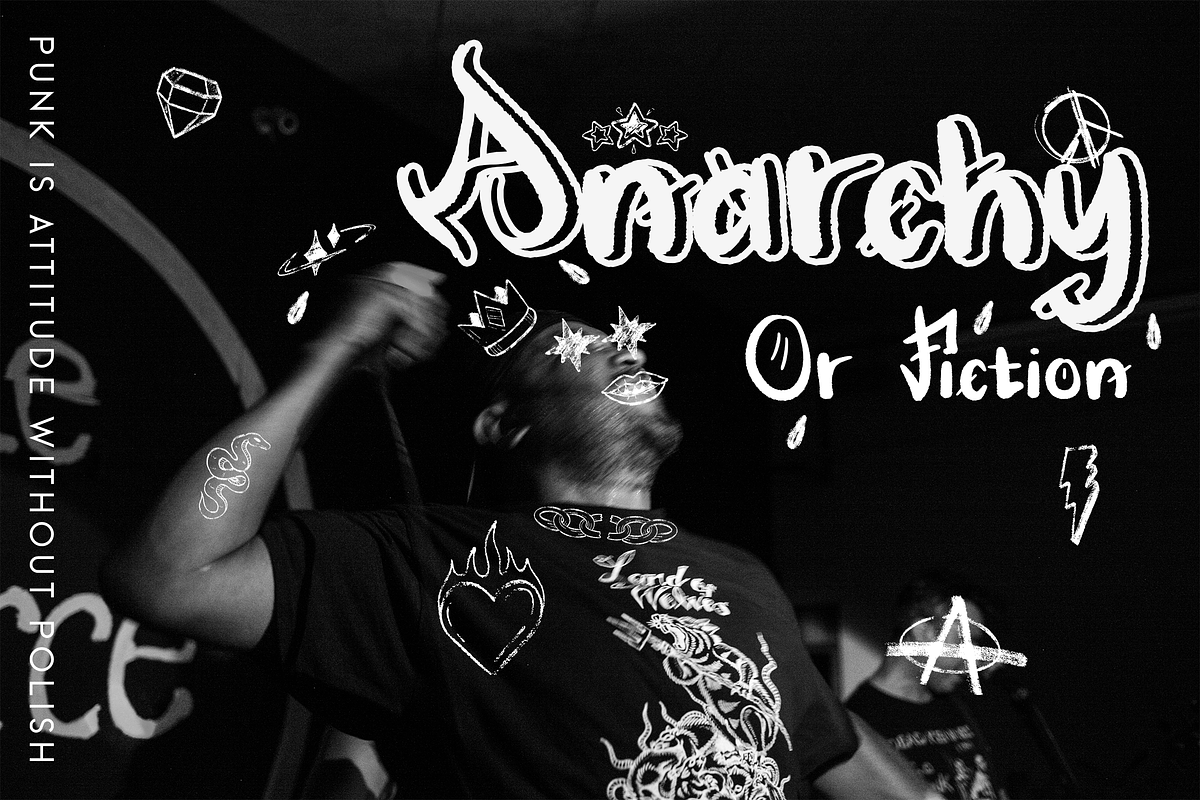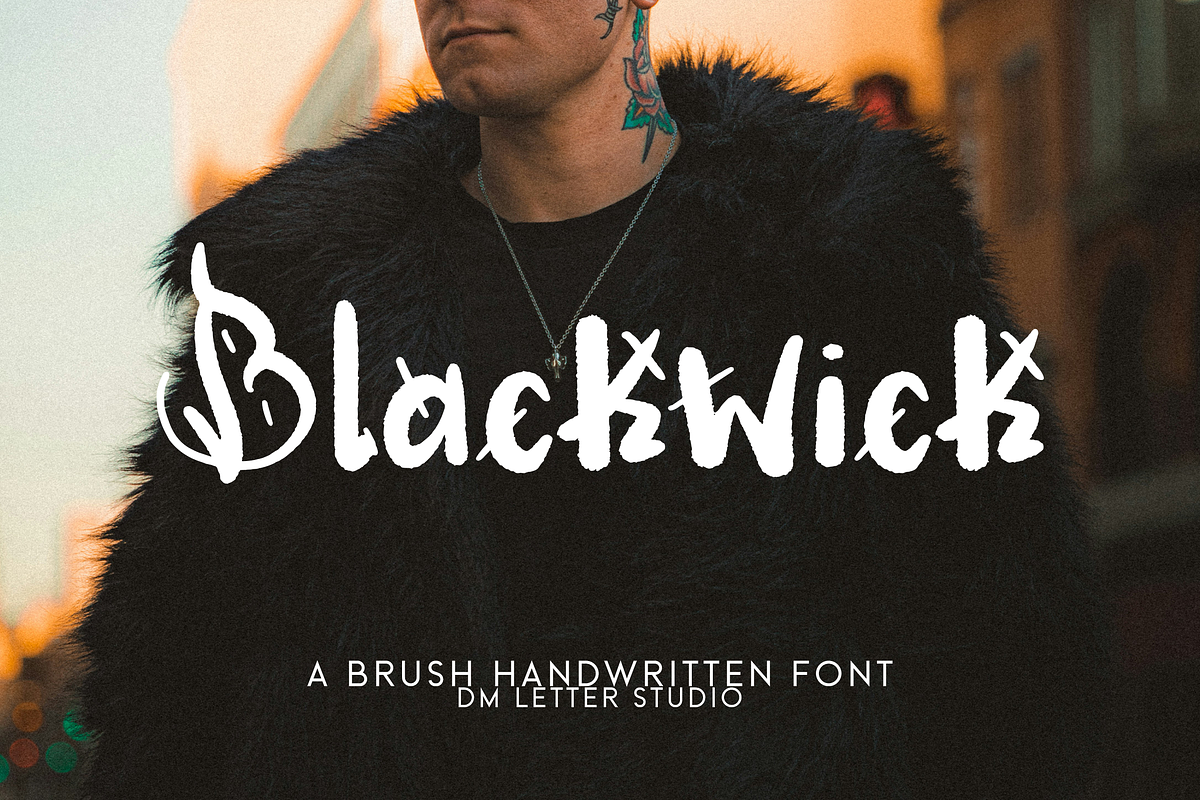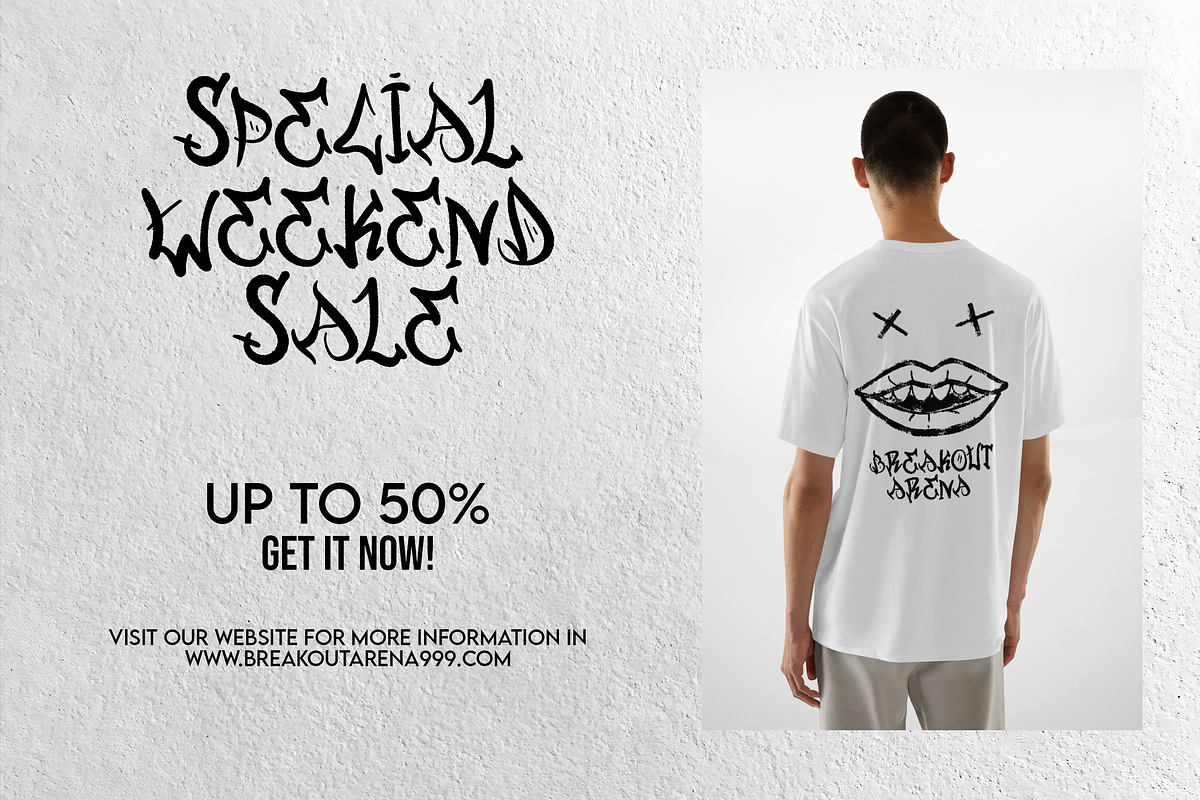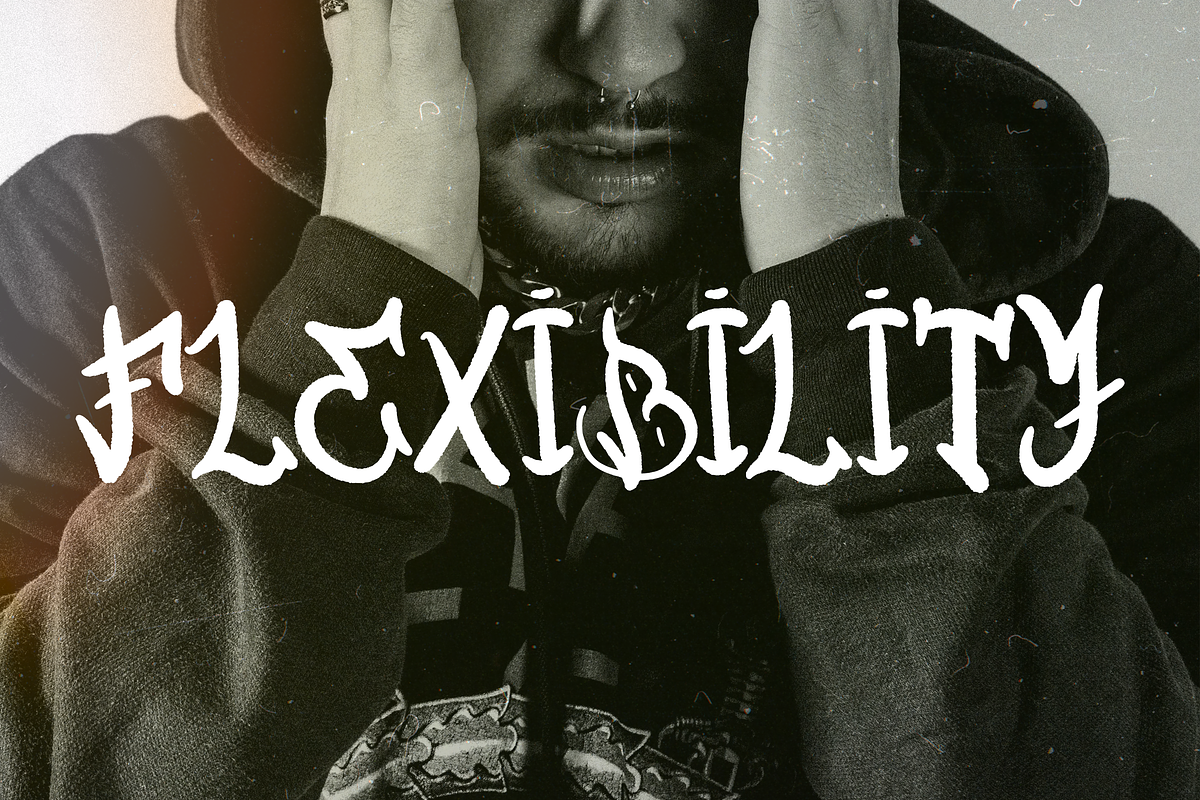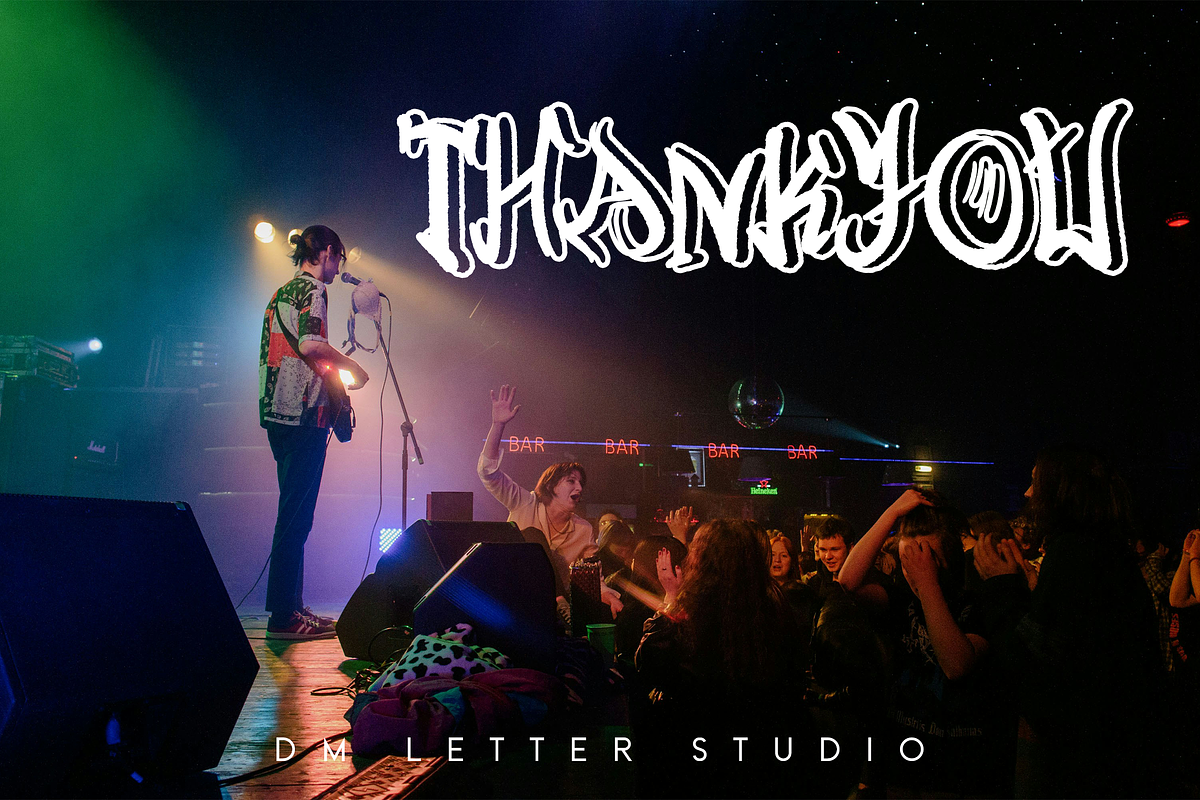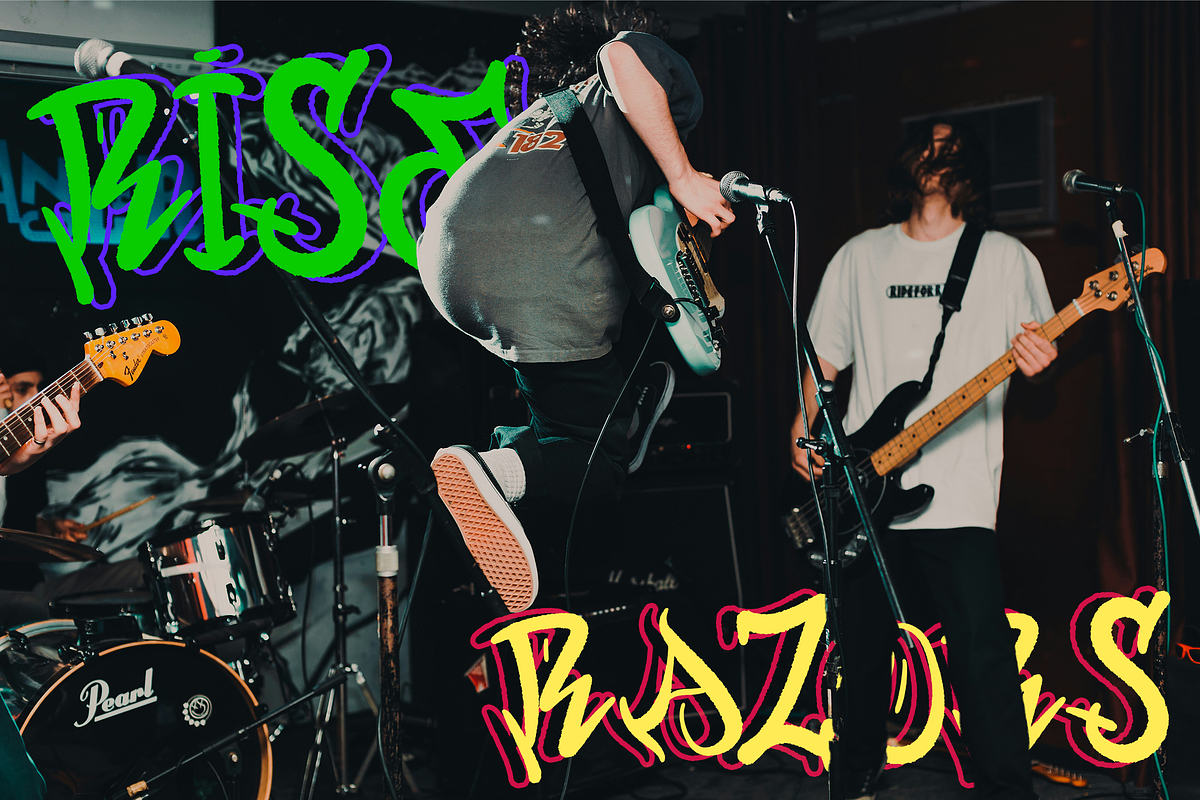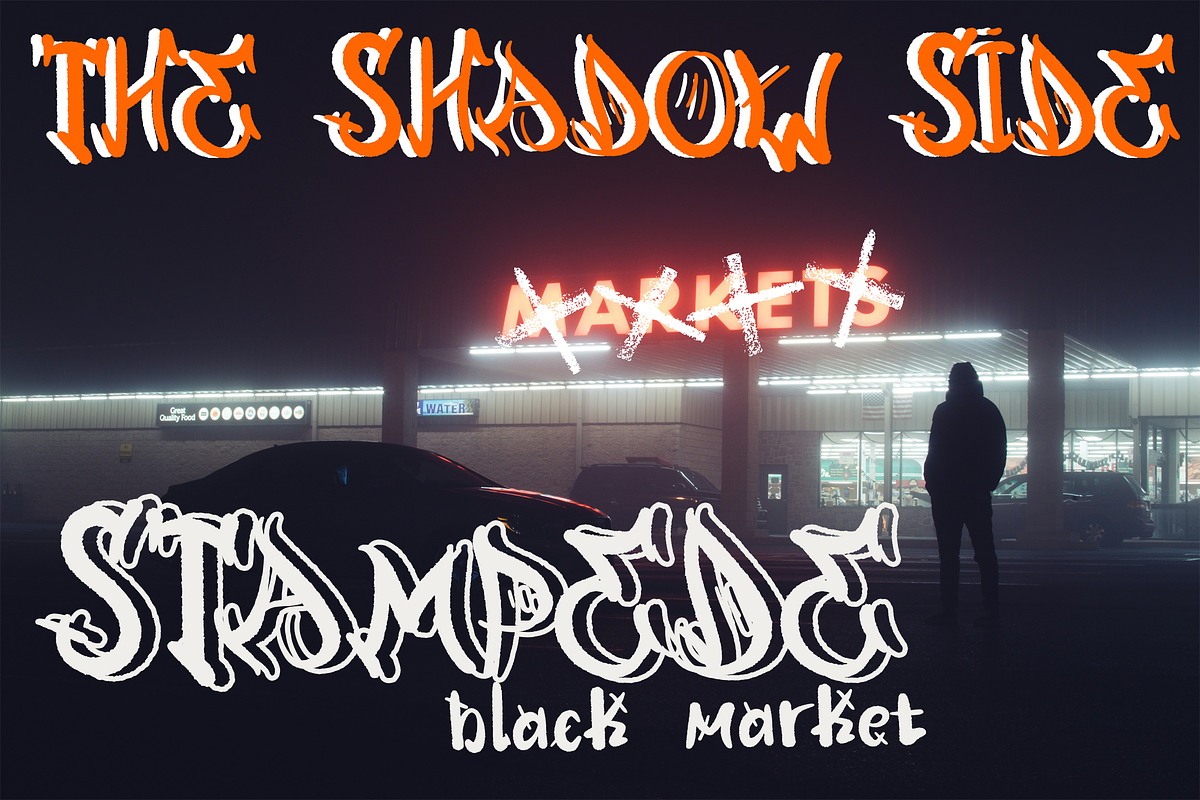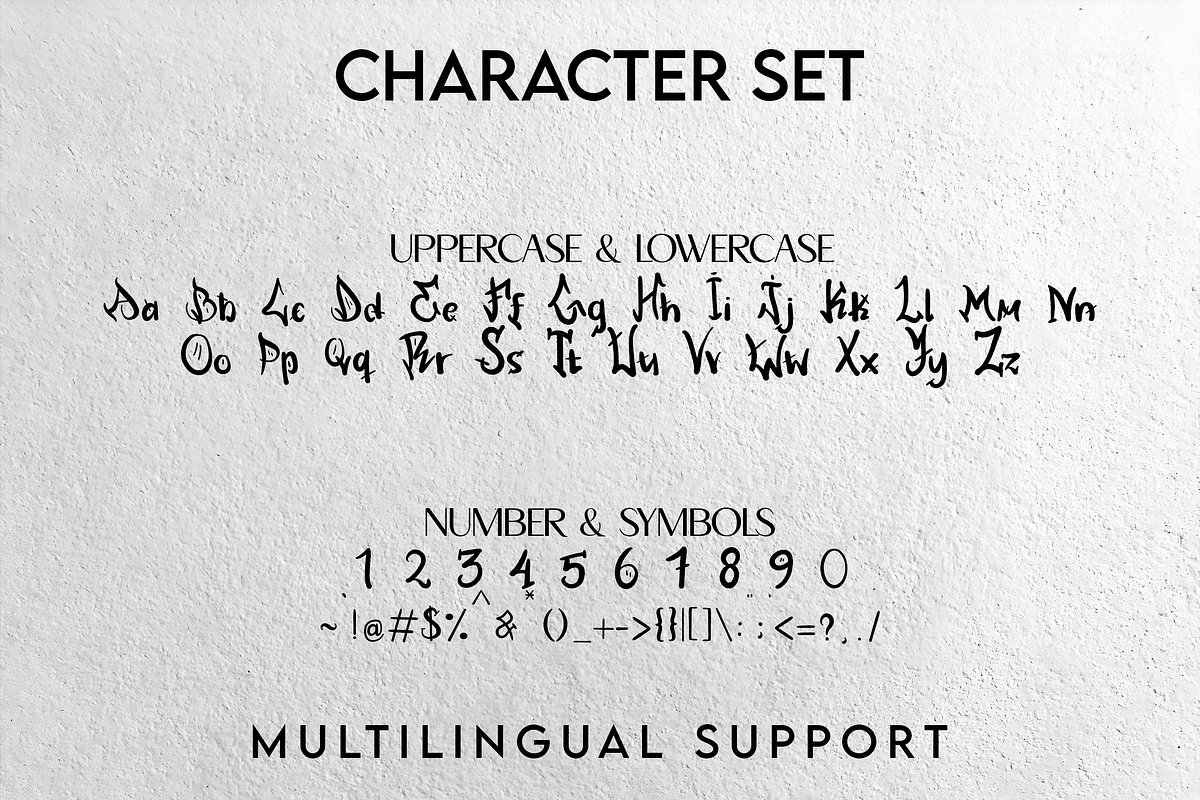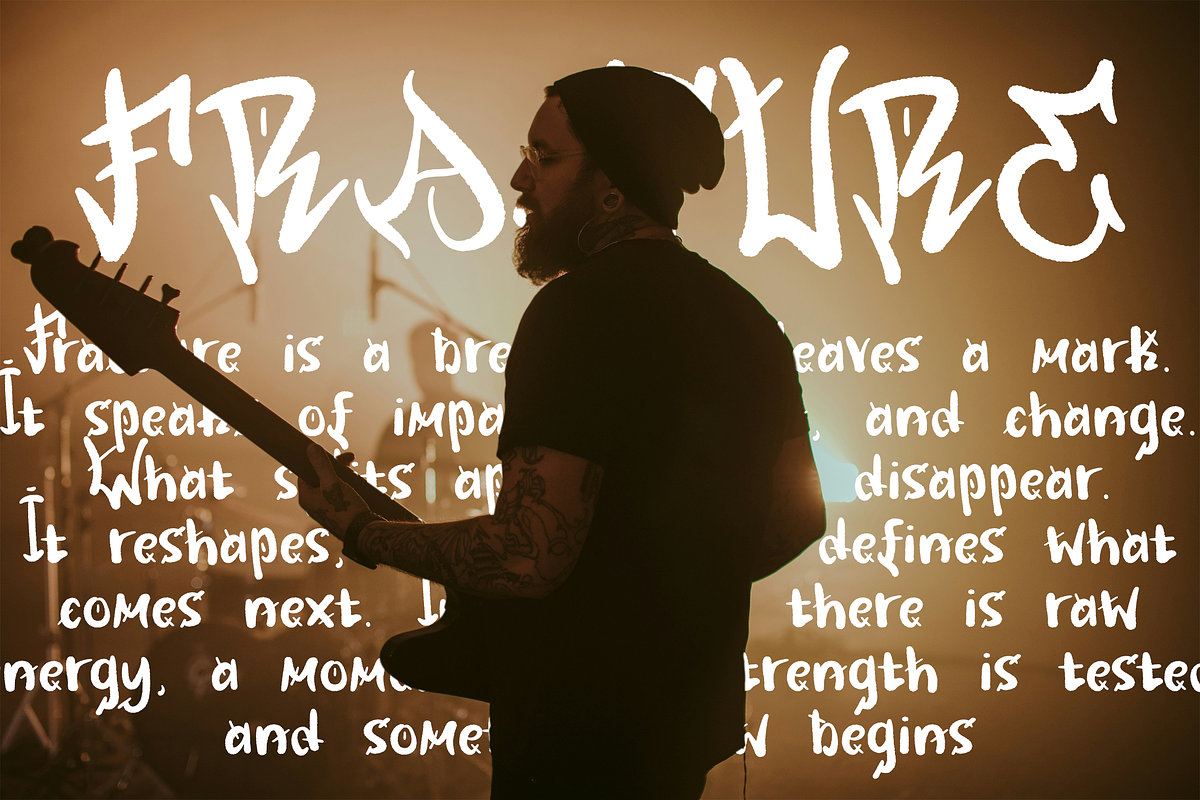
Blackwick
Meet Blackwick, the Brush Font
Blackwick is a bold brush handwritten font with an urban streetart attitude. The strokes feel fast, raw, and expressive, like fresh paint pulled straight from a marker or brush pen. It delivers strong character while staying readable, so your headlines hit hard and your short phrases stay clear. Use Blackwick for streetwear branding, posters, music visuals, sports graphics, packaging, and social media content. As a result, your designs feel loud, modern, and full of movement.
Fast layouts with the Blackwick Brush Font
Start with short, punchy words so the brush texture stays the hero. After that, pair it with a clean condensed sans or a simple grotesk for supporting text. Because Blackwick is naturally expressive, keep effects minimal and let the strokes do the work. In addition, it looks great on high-contrast layouts, textured paper, concrete backdrops, or simple solid blocks. Finally, try reusable palettes like black and white, charcoal and neon accents, tan and black, or red and cream for instant street style.
Creative uses and quick wins
- Streetwear logos, hoodie prints, and merch drops
- Posters, flyers, album covers, and event graphics
- Sports headlines, team slogans, and YouTube thumbnails
- Packaging for coffee, sauce, skate brands, and handmade goods
- Uppercase and lowercase letters
- Numbers and basic punctuation
Design tips for Blackwick Brush Font
Use Blackwick for titles, logos, and bold statements, then keep body text clean and simple. Also, increase tracking slightly when placing it on busy backgrounds. For print, export at 300 DPI to keep the texture crisp. For web, scale up a bit so strokes stay sharp on mobile screens. Finally, if you need a cleaner look, place Blackwick on a solid shape or label block.